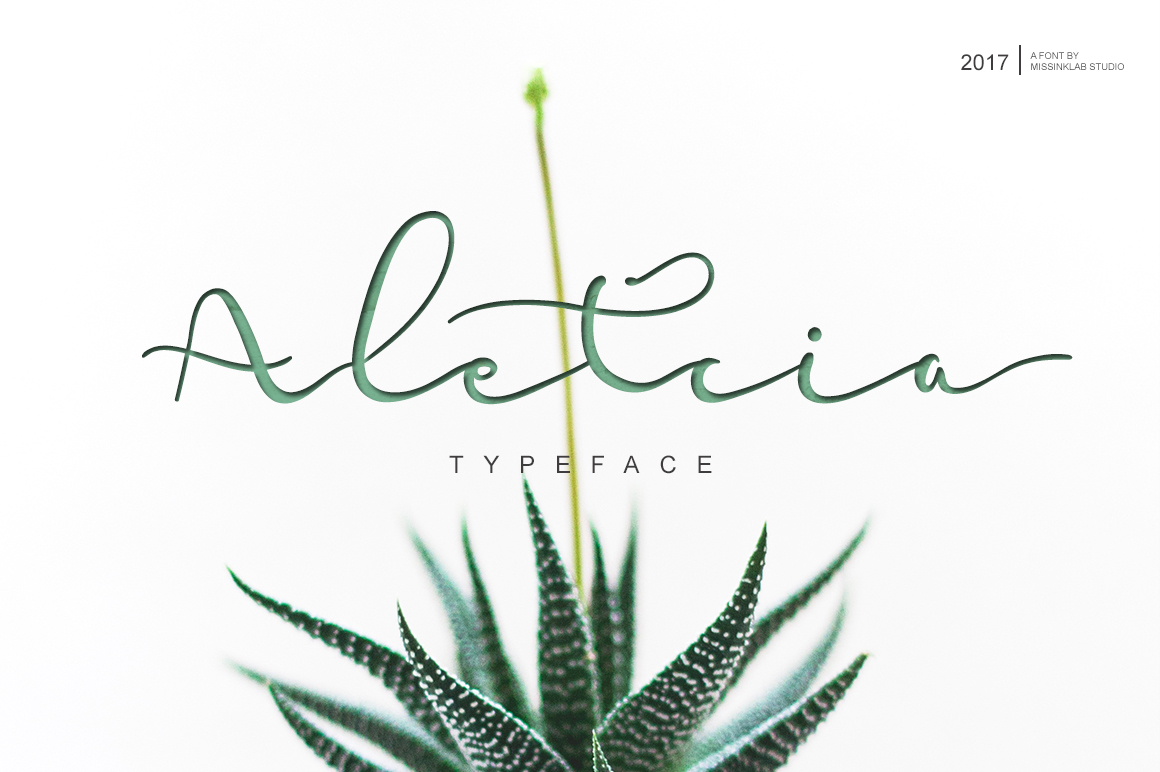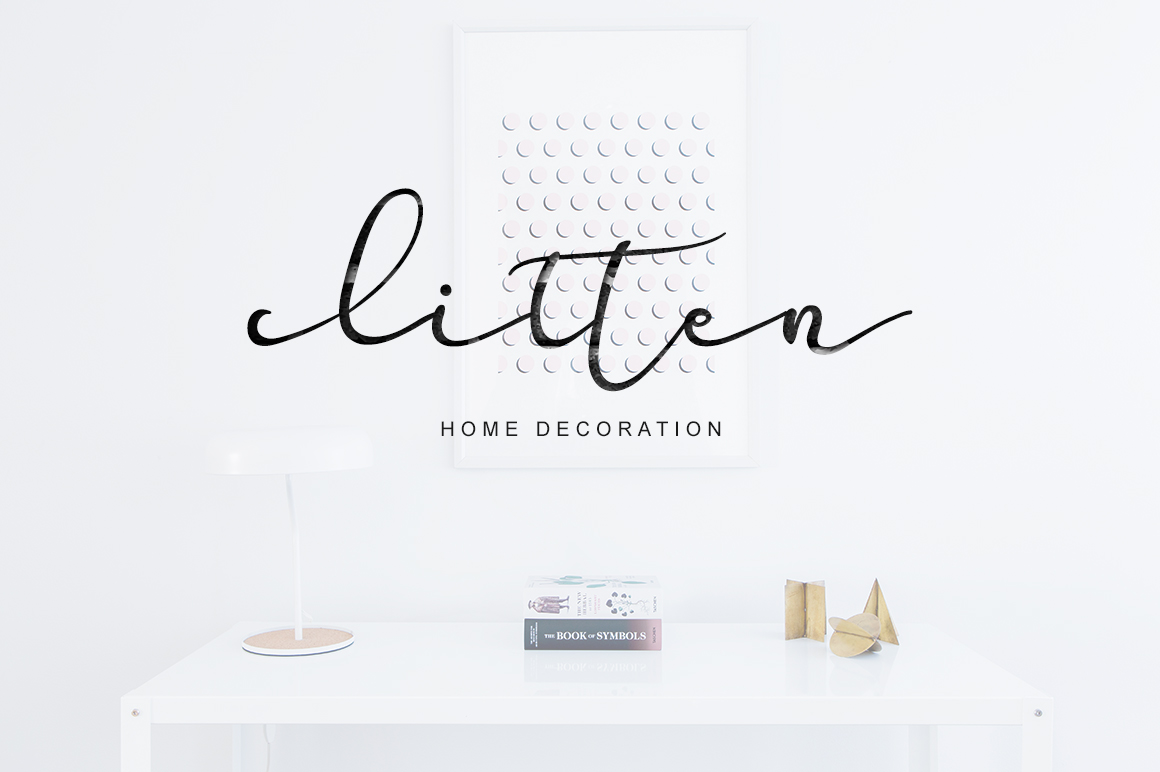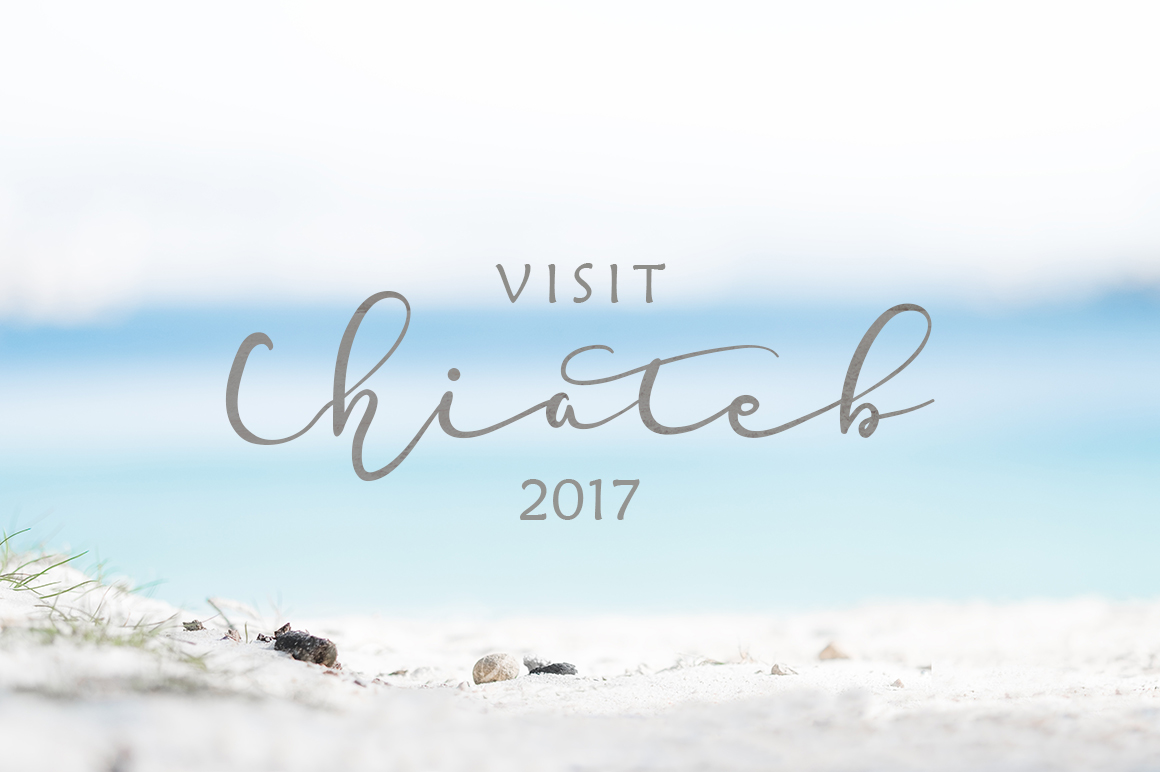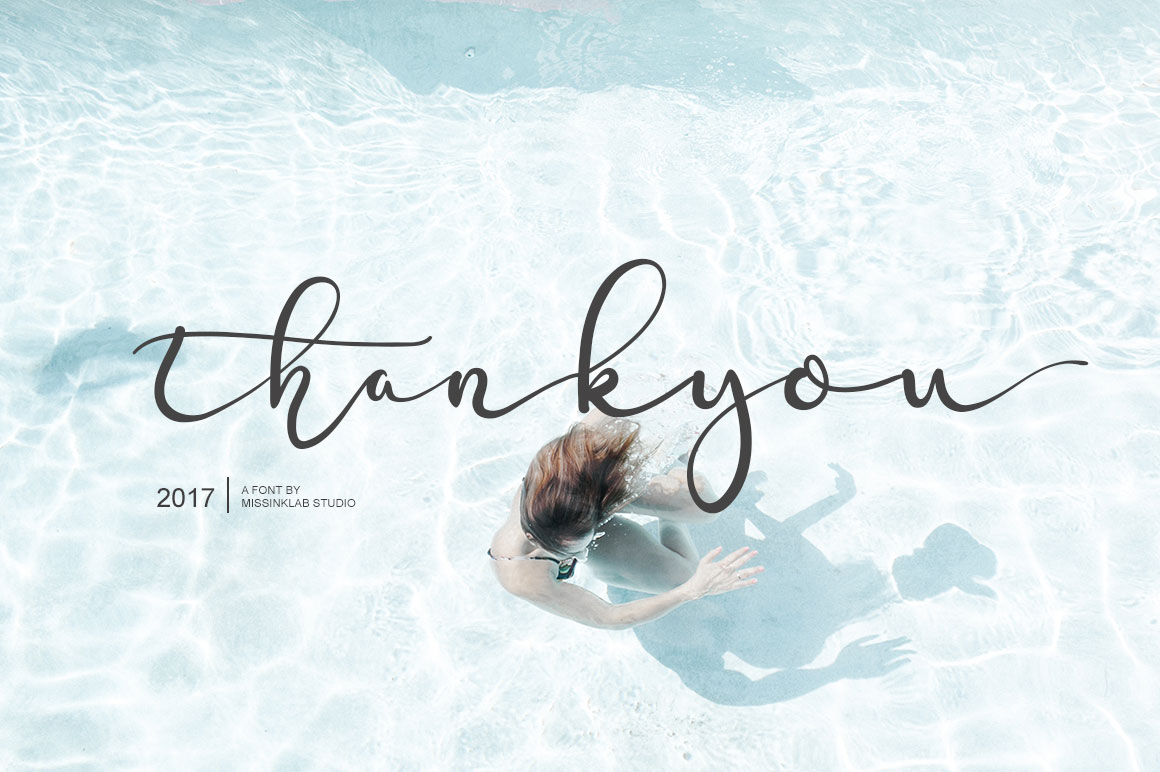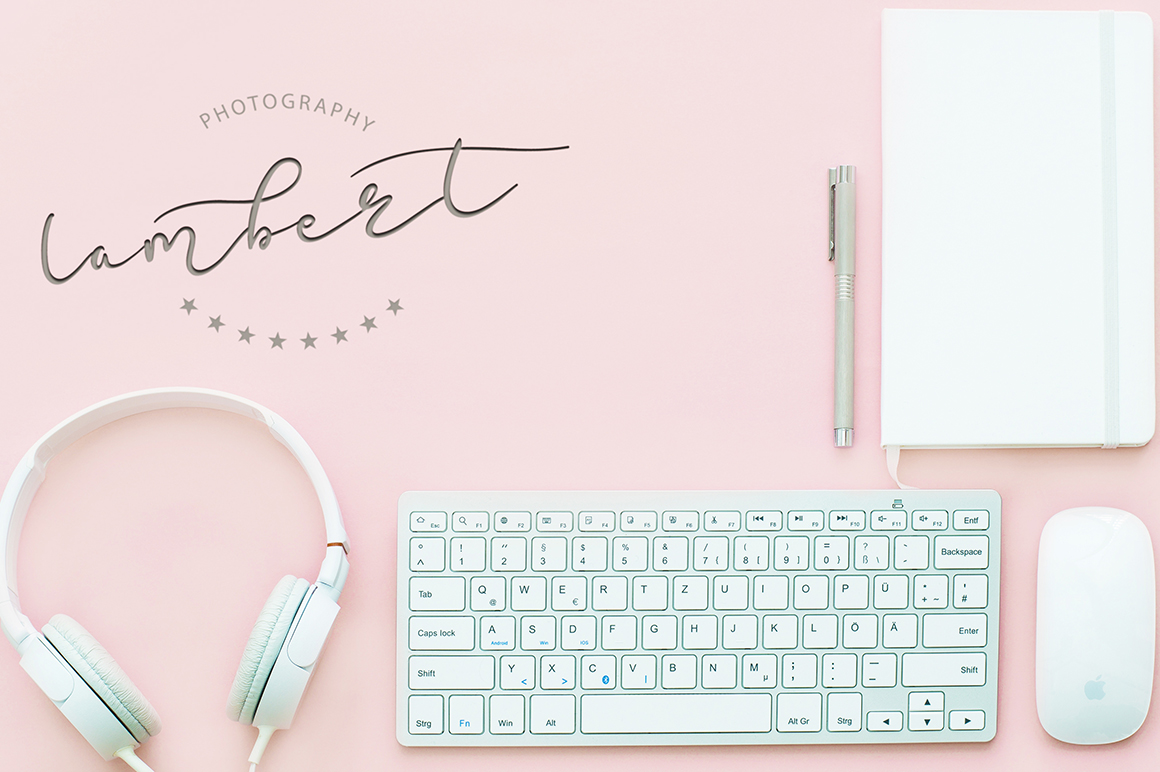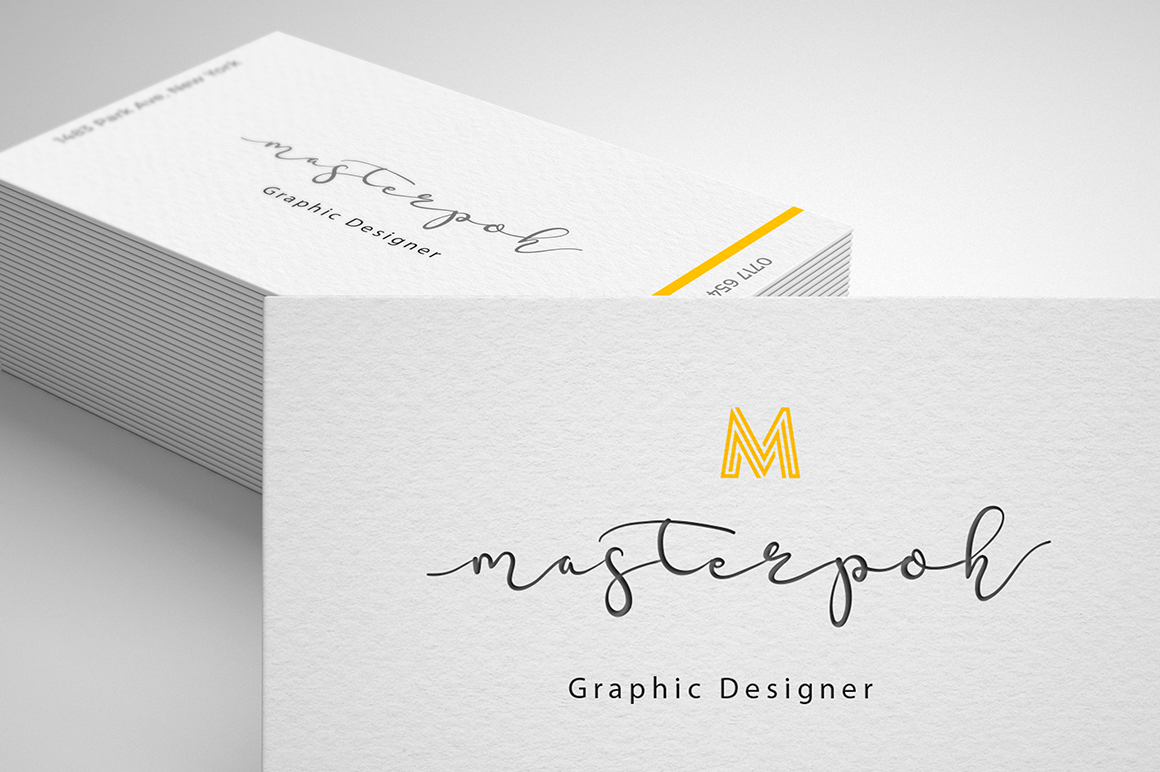
HomeScript FontsAletcia Font Script Fonts Aletcia Font FacebookXPinterestWhatsApp Aletcia Font Poster 2 Aletcia Font Poster 3 Aletcia Font Poster 4 Aletcia Font Poster 5 Aletcia Font Poster 6 About Aletcia Font Aletcia is a gorgeous handwritten script font with a modern style. DOWNLOAD ON CREATIVE FABRICAThis font is sold and delivered by Creative Fabrica. Font Canyon may earn a commission if you buy through this link. People also explored Lodge Font Quadro Font Black Font Baylersome Font The Rocky Font Polaroid Font Celsea Font 2 Wine Glass Mockup Hard Sport Font 335 0 TagsAletcia Font Previous articleSaswitta FontNext articleAlinkha Bothine Font LEAVE A REPLY Cancel reply Comment: Please enter your comment! Name:* Please enter your name here Email:* You have entered an incorrect email address! Please enter your email address here Website: Save my name, email, and website in this browser for the next time I comment. Personal Use Free DoooLA Personal Use Free Read more about this font Bright Dreams Personal Use Free Read more about this font Jurnal Personal Use Free Read more about this font Pan Pizza Personal Use Free Read more about this font BLOG Top 10 Handwritten Fonts That Elevate Your Designs Top 10 Handwritten Fonts That Will Elevate Your Designs Handwritten fonts bring a warm, personal touch to every creative project. Whether you're designing logos, invitations,... The 10 Best Handwriting Fonts to Add Personality to Your Designs How to Cut Any Font on Cricut: Convert a Font to SVG (Free) Transform Your Website: Elevate Your Typography with 7 Best Web Font Generators